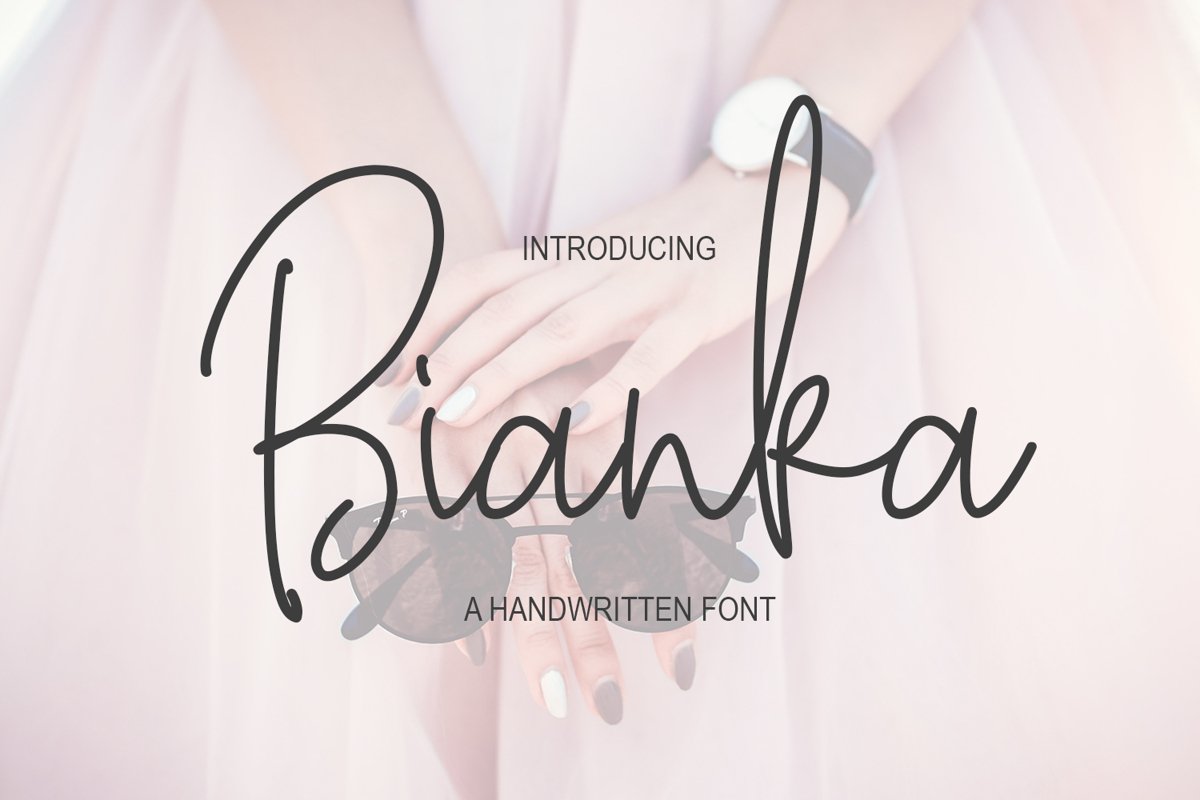
Bianka Script Font
Bianka Script
we are proud to present our new font bianka script.
this is a handwritten font with monoline style.
it comes with over 250 glips, with alternate, ligature and swash features that will be very much in line with your design project.
2. opentype feature (alternate, ligature, swash)
3. Multilingual Support AÀÁÂÃÄÅCÇDEÈÉÊËIÌÍÎÏNÑOÒÓÔÕÖUÙÜÚÛY